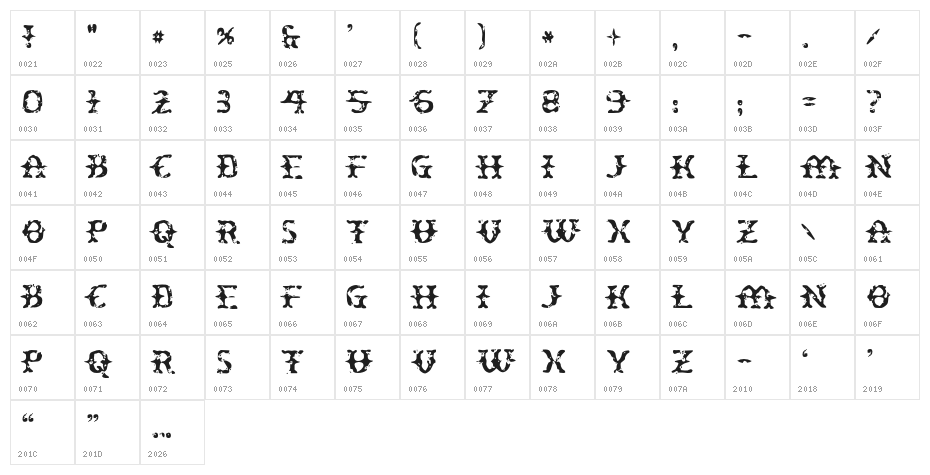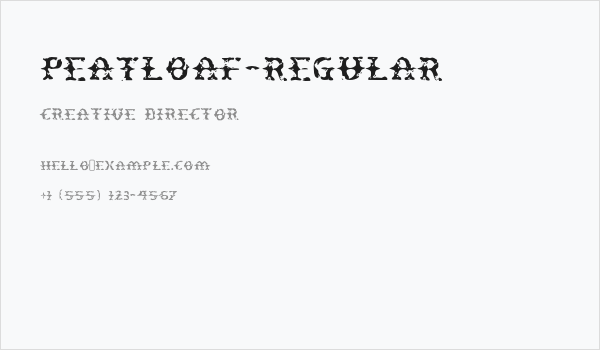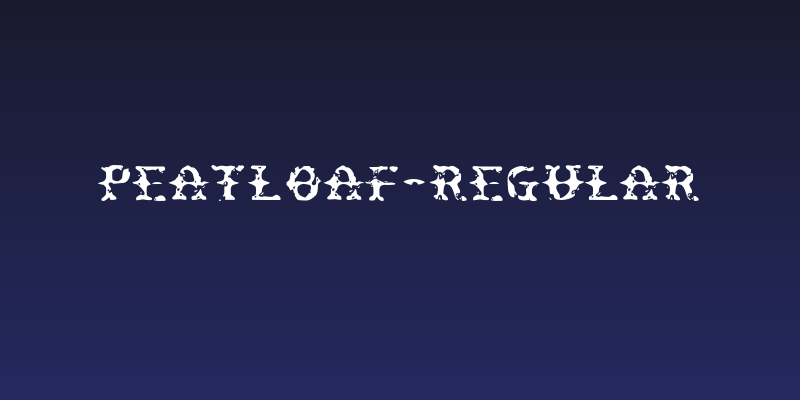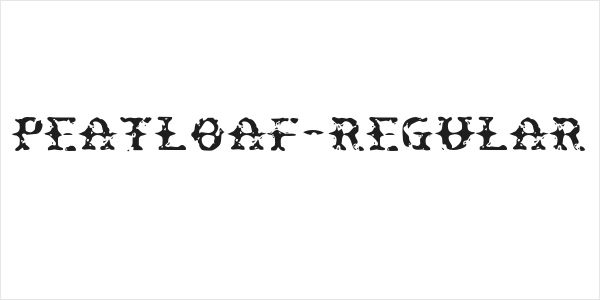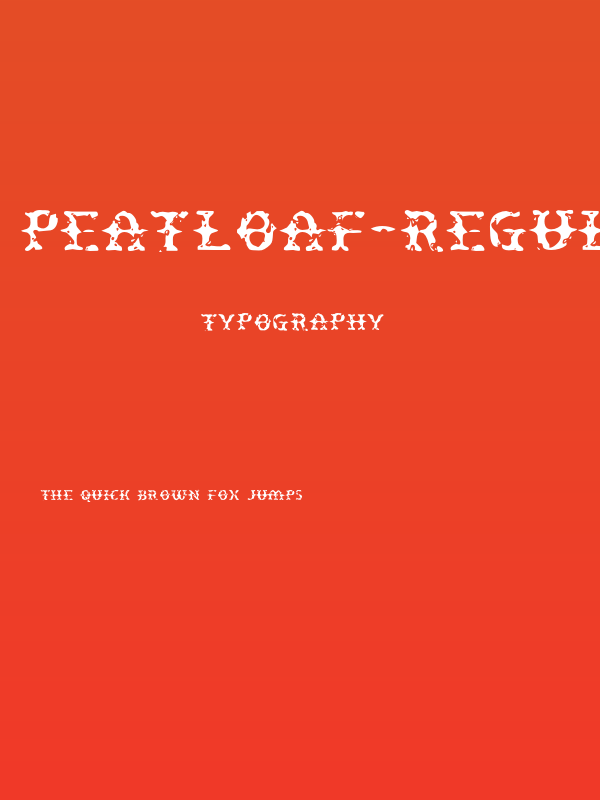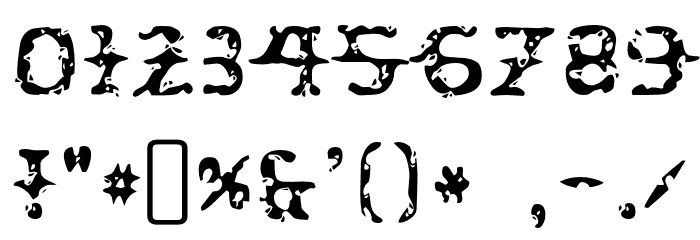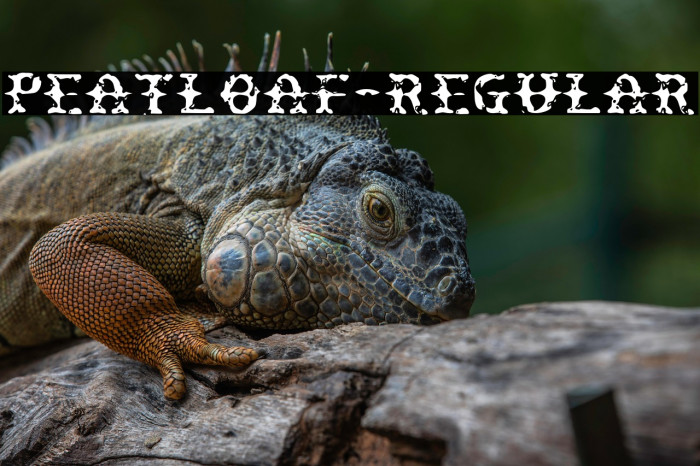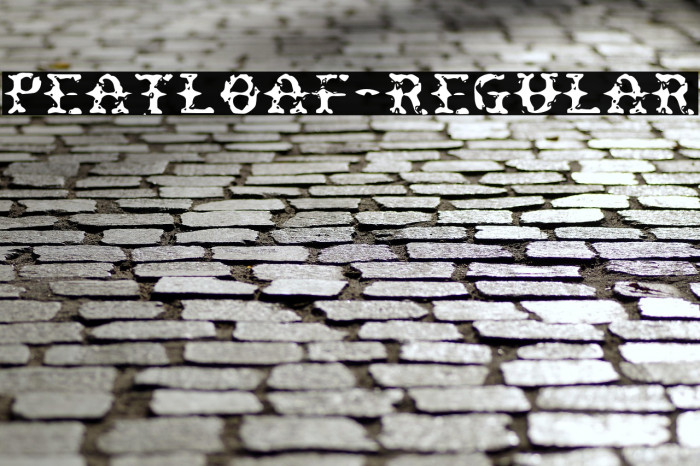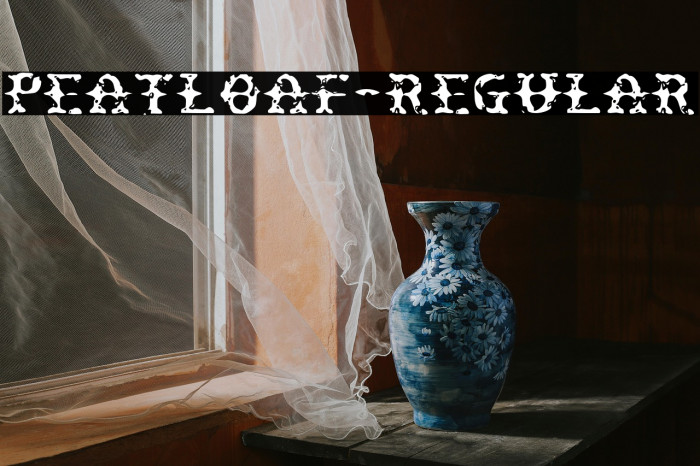
Peatloaf-Regular Font
Peatloaf-Regular Description
This font features a highly decorative and distressed style, characterized by irregular, jagged edges and a textured appearance that mimics a worn or eroded surface. The letters are bold and have a substantial presence, making them stand out with their unique, artistic flair. The uppercase and lowercase letters maintain a consistent design, with each character exhibiting a rugged and organic look. The numbers and special characters follow the same stylistic theme, ensuring a cohesive appearance across all glyphs. This font's distinctiveness lies in its ability to convey a sense of antiquity and rawness, making it ideal for projects that require a bold, eye-catching typeface.